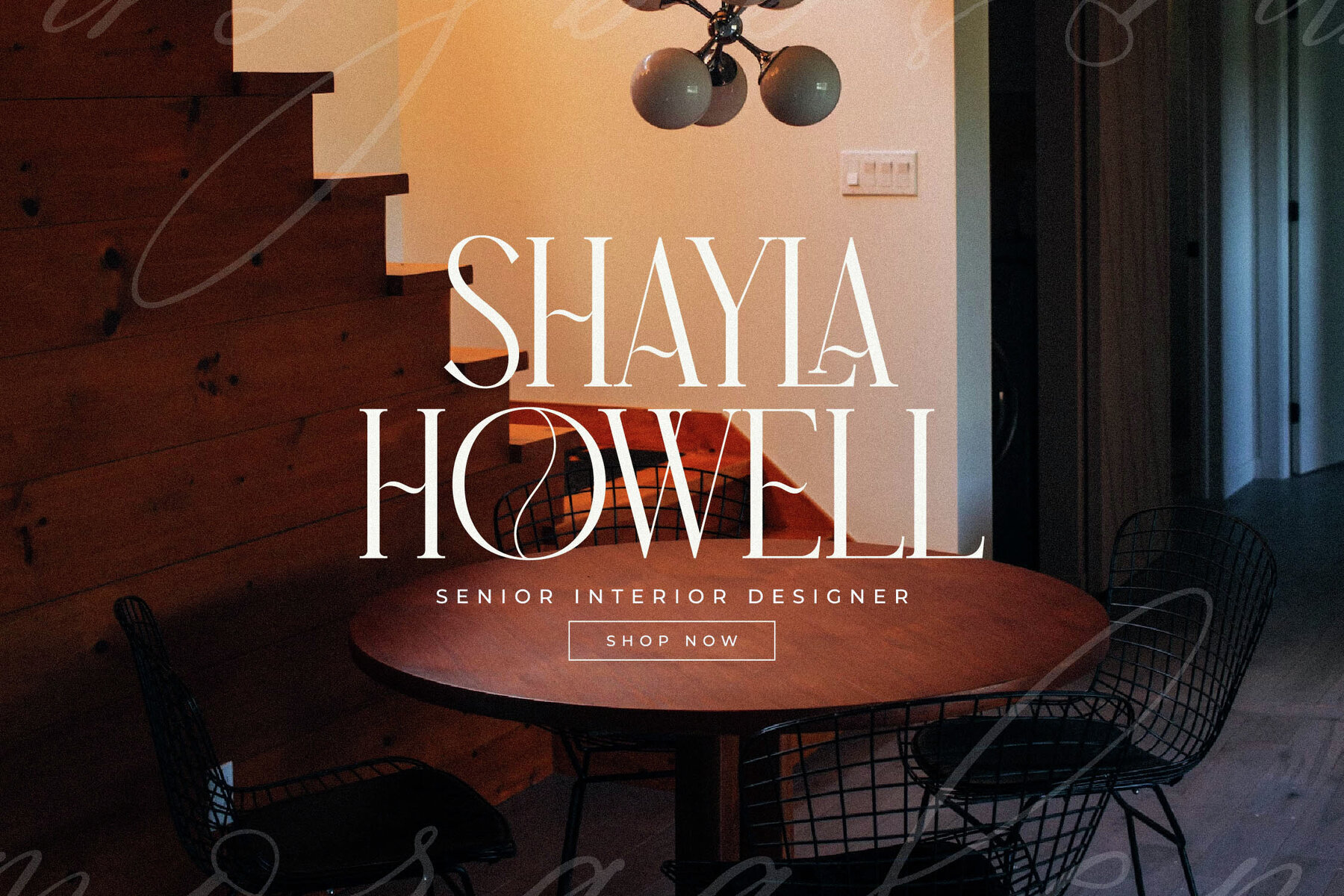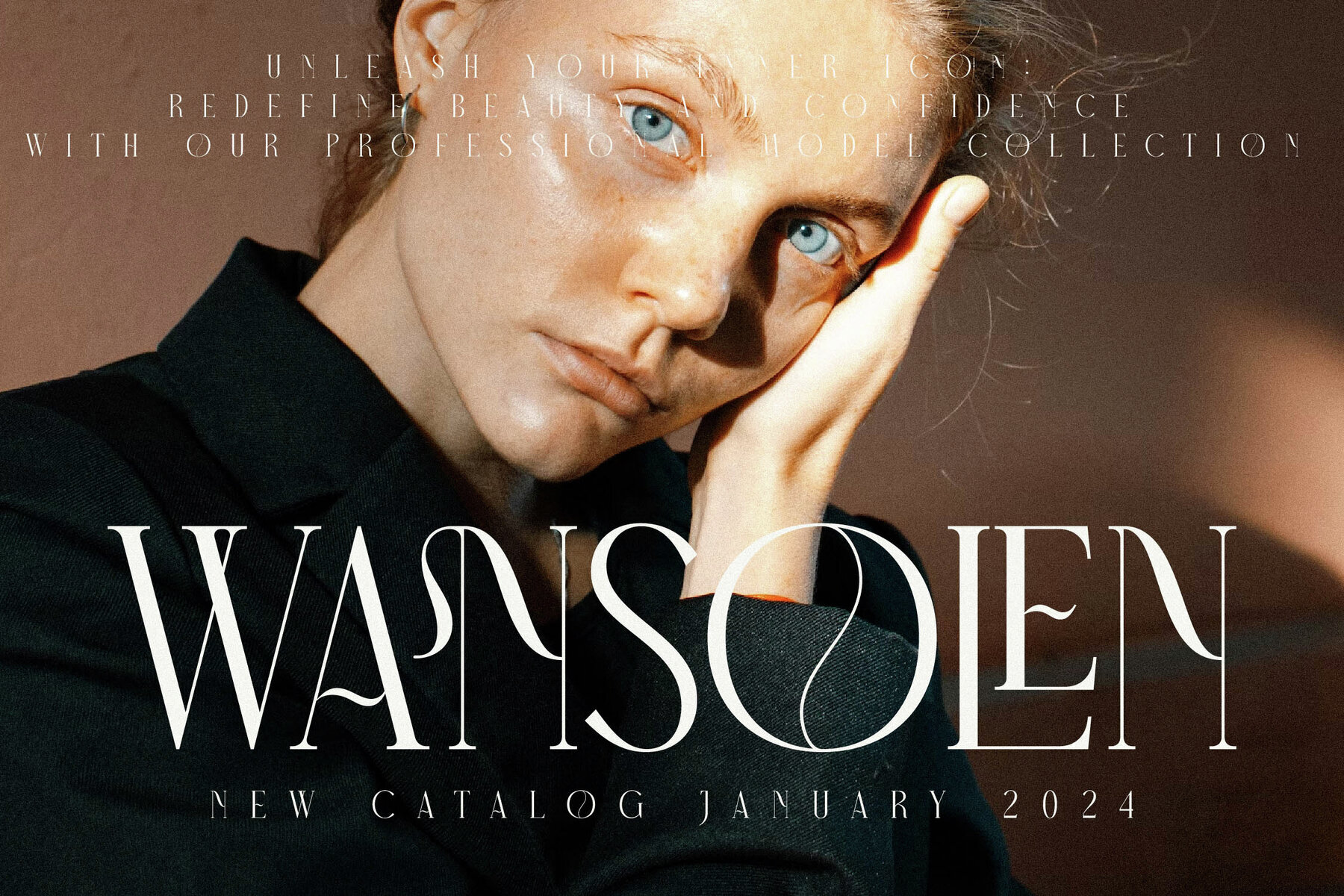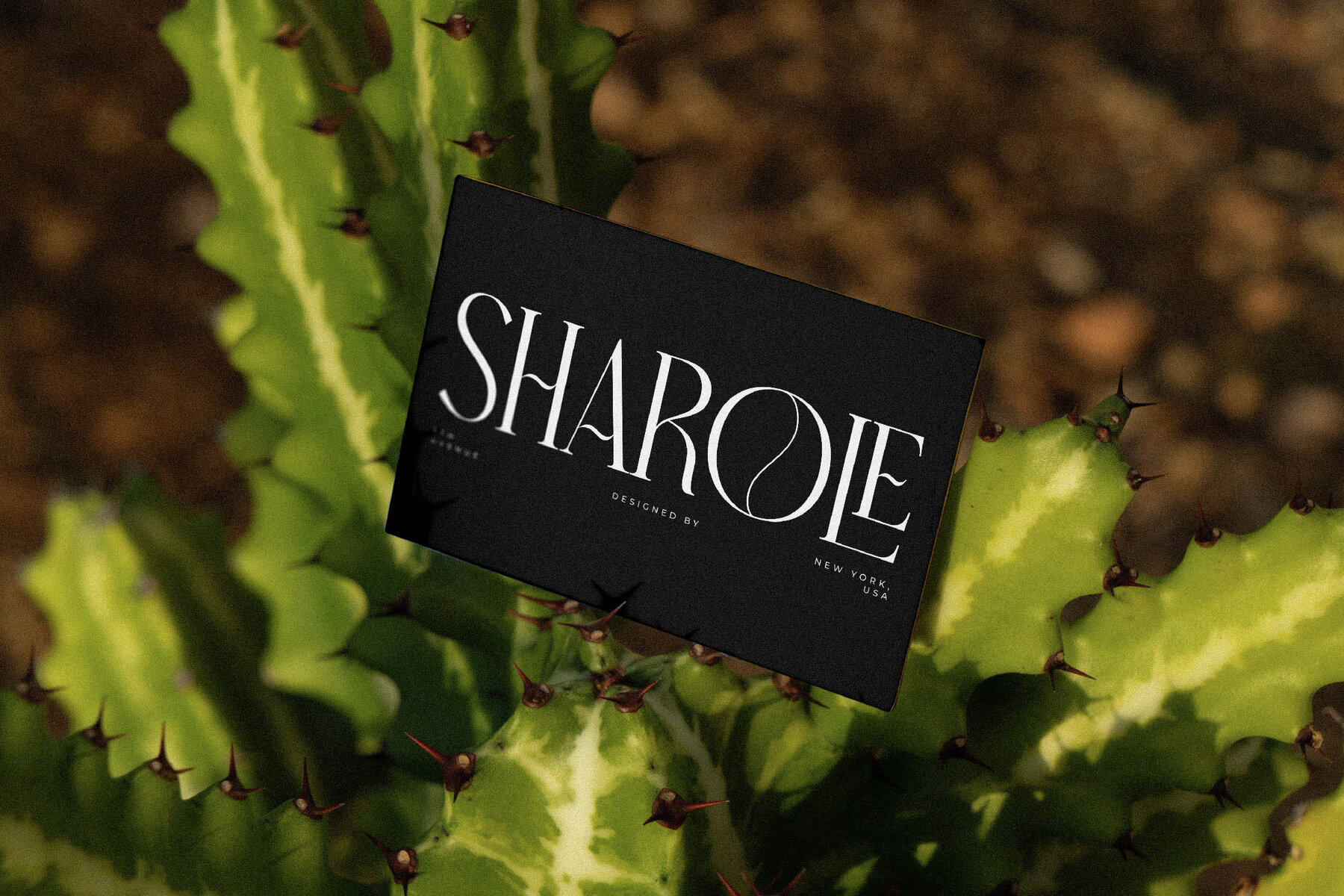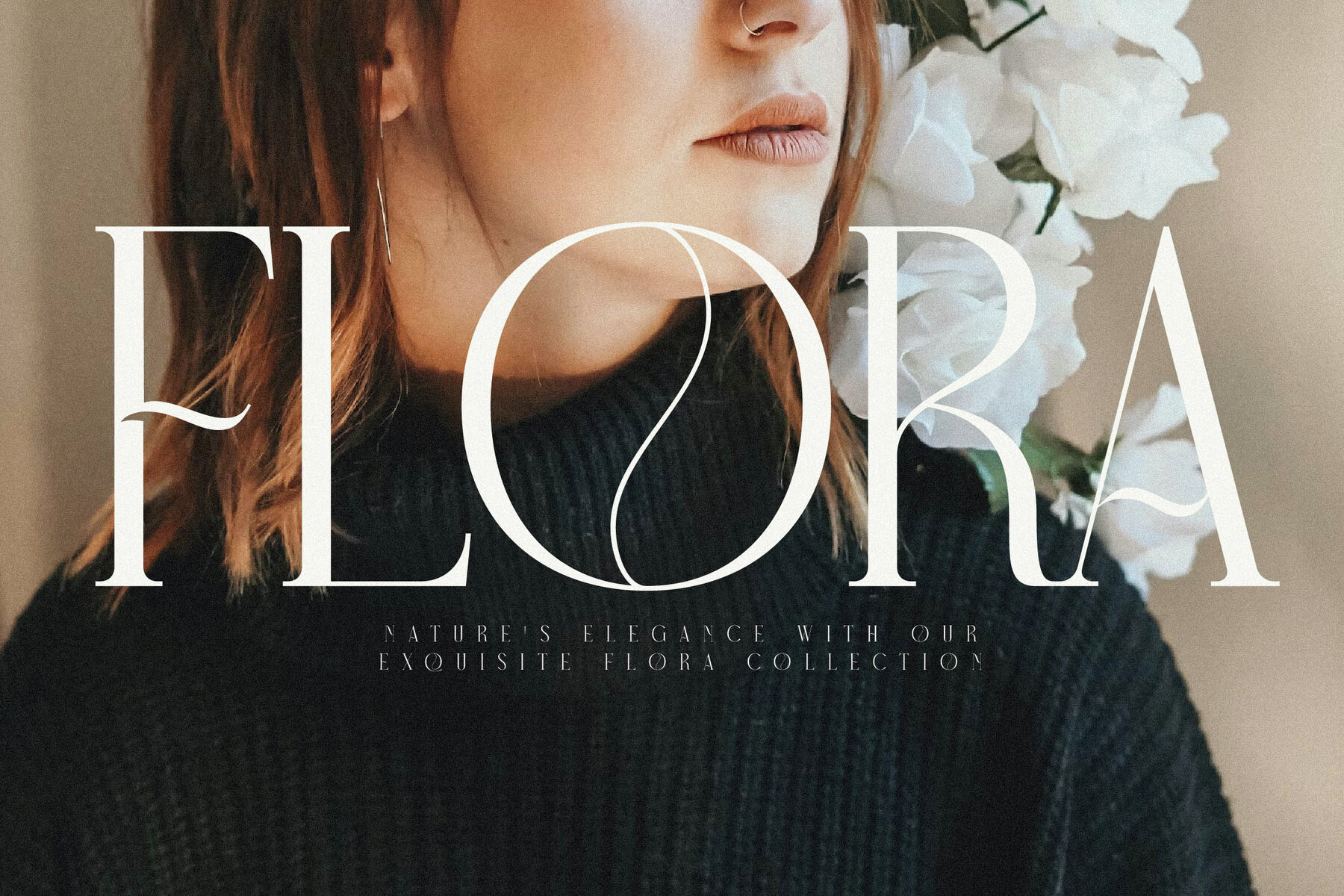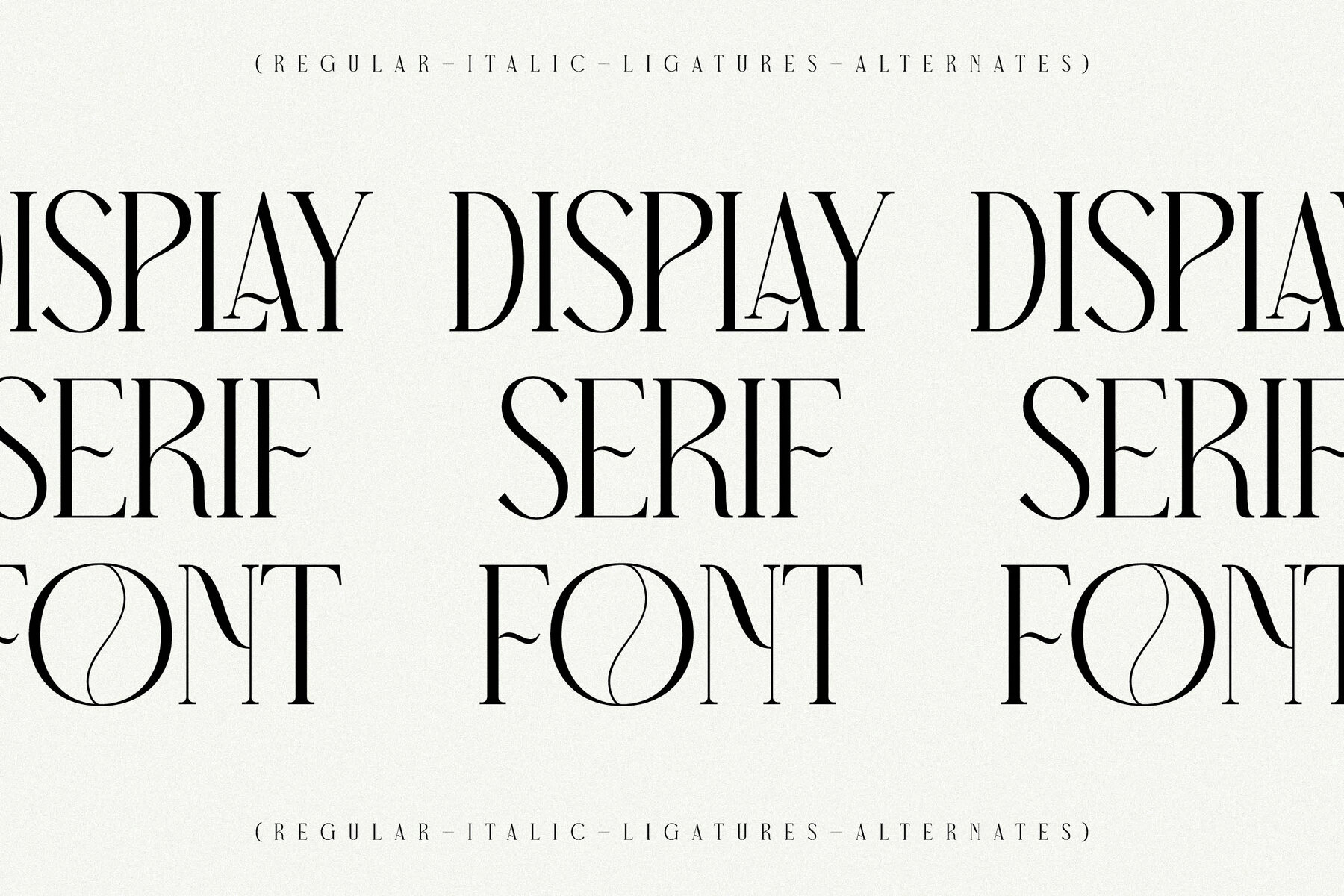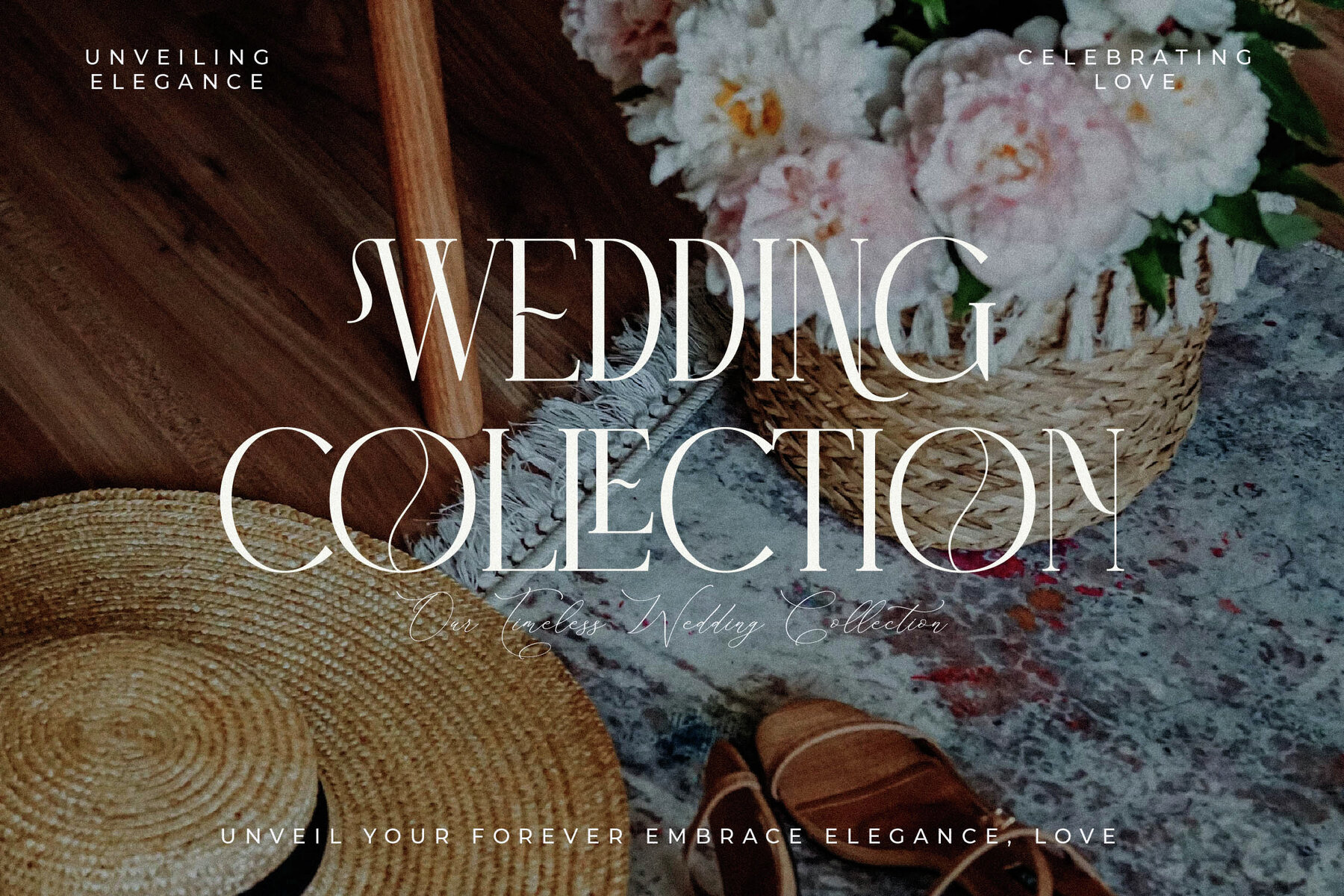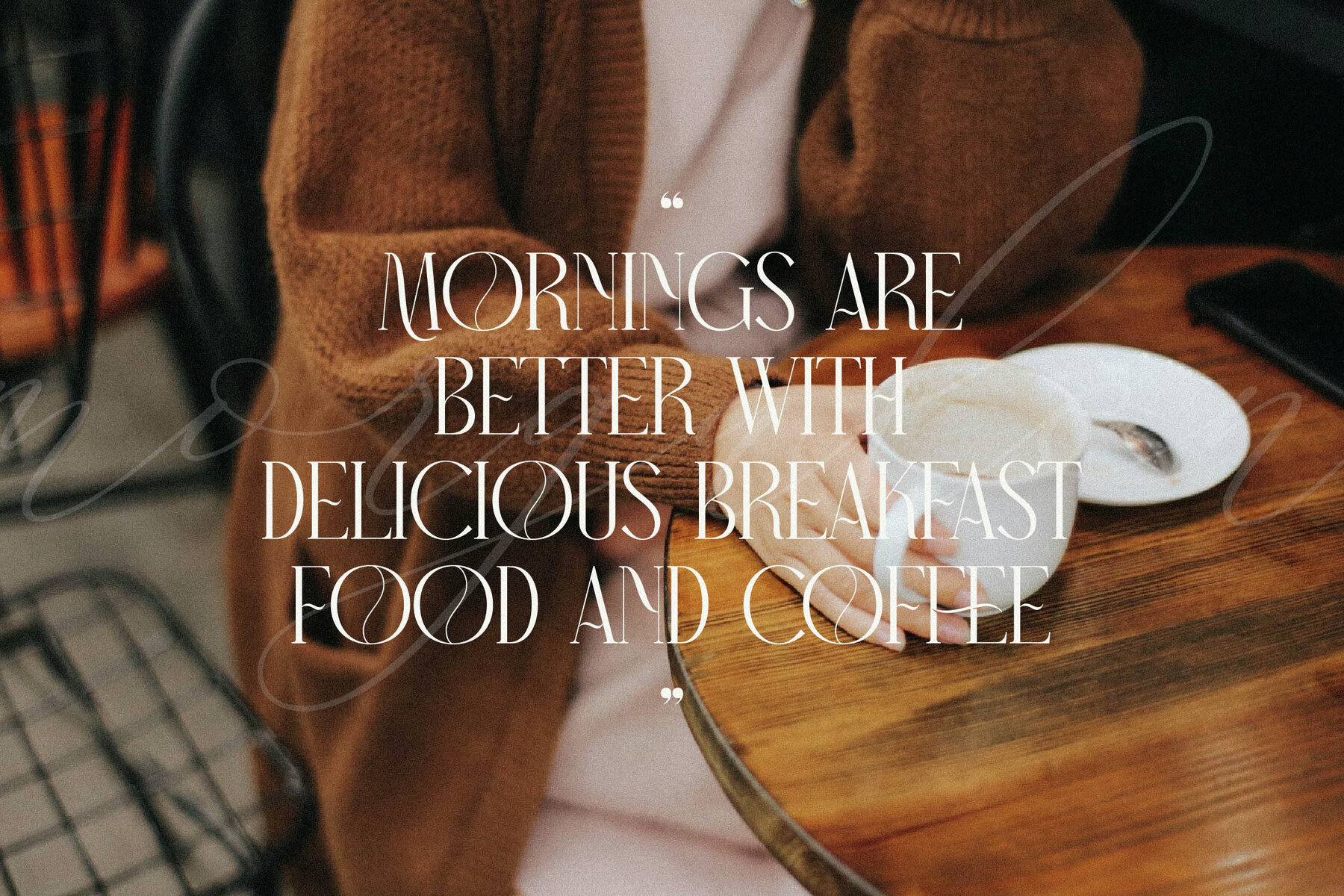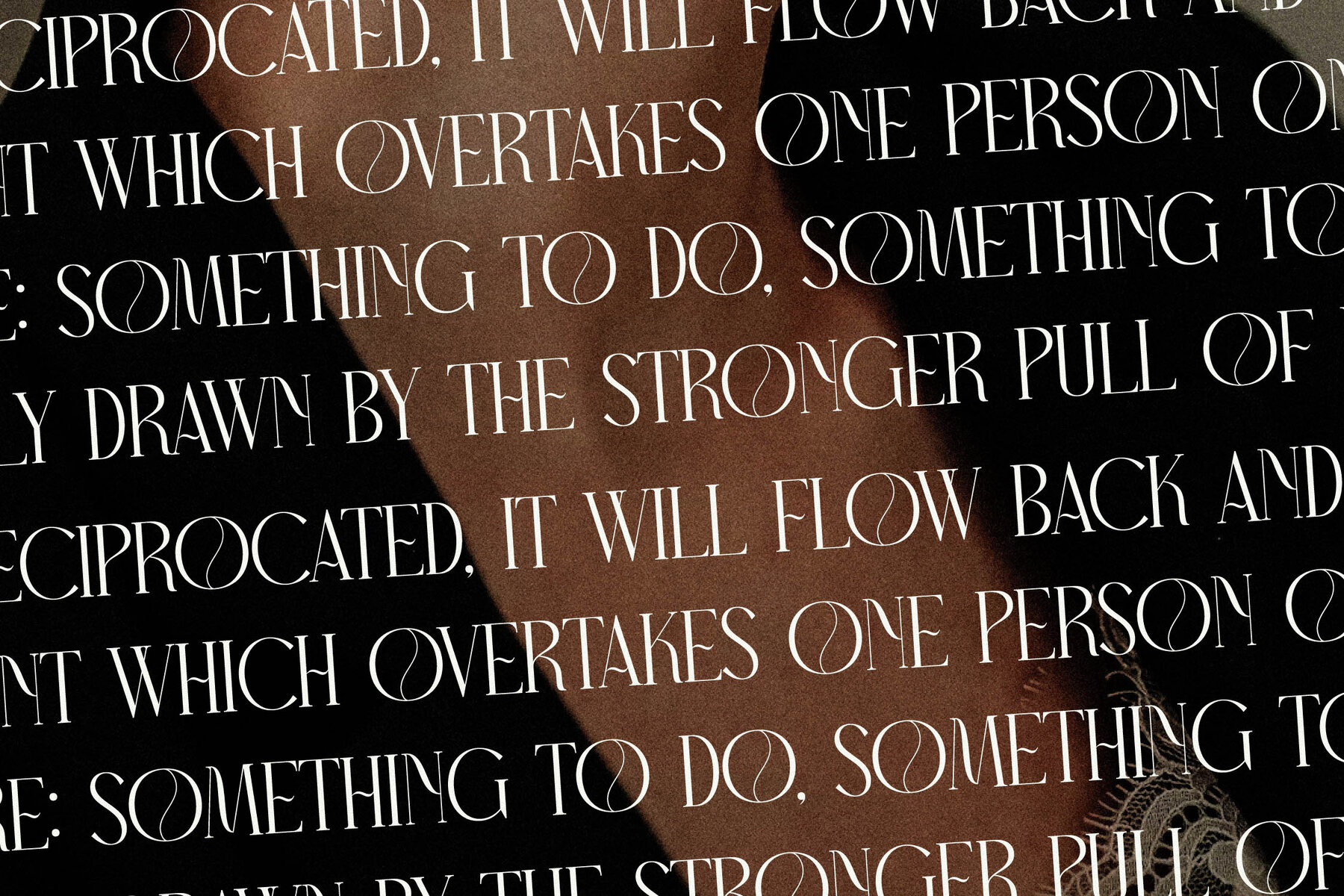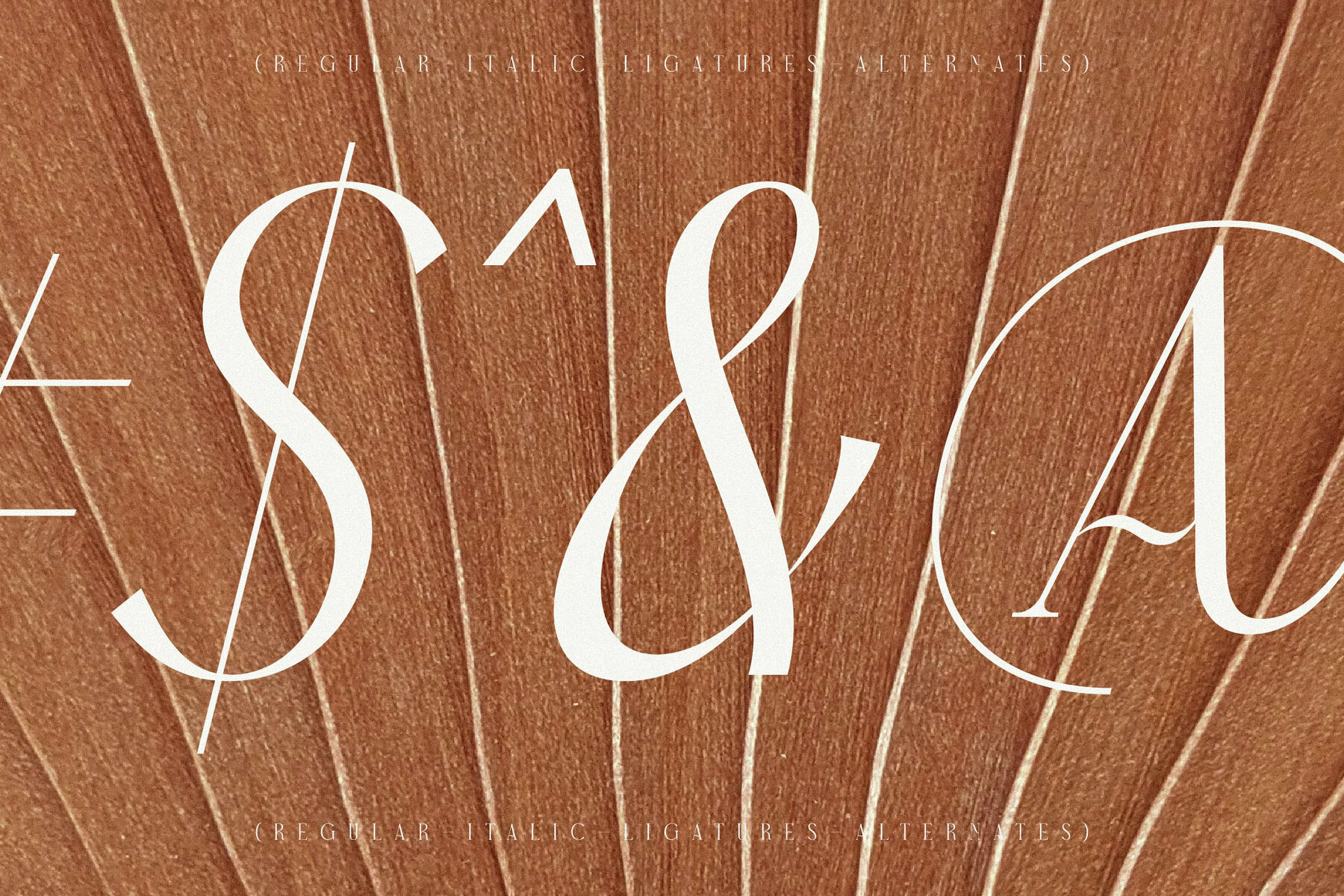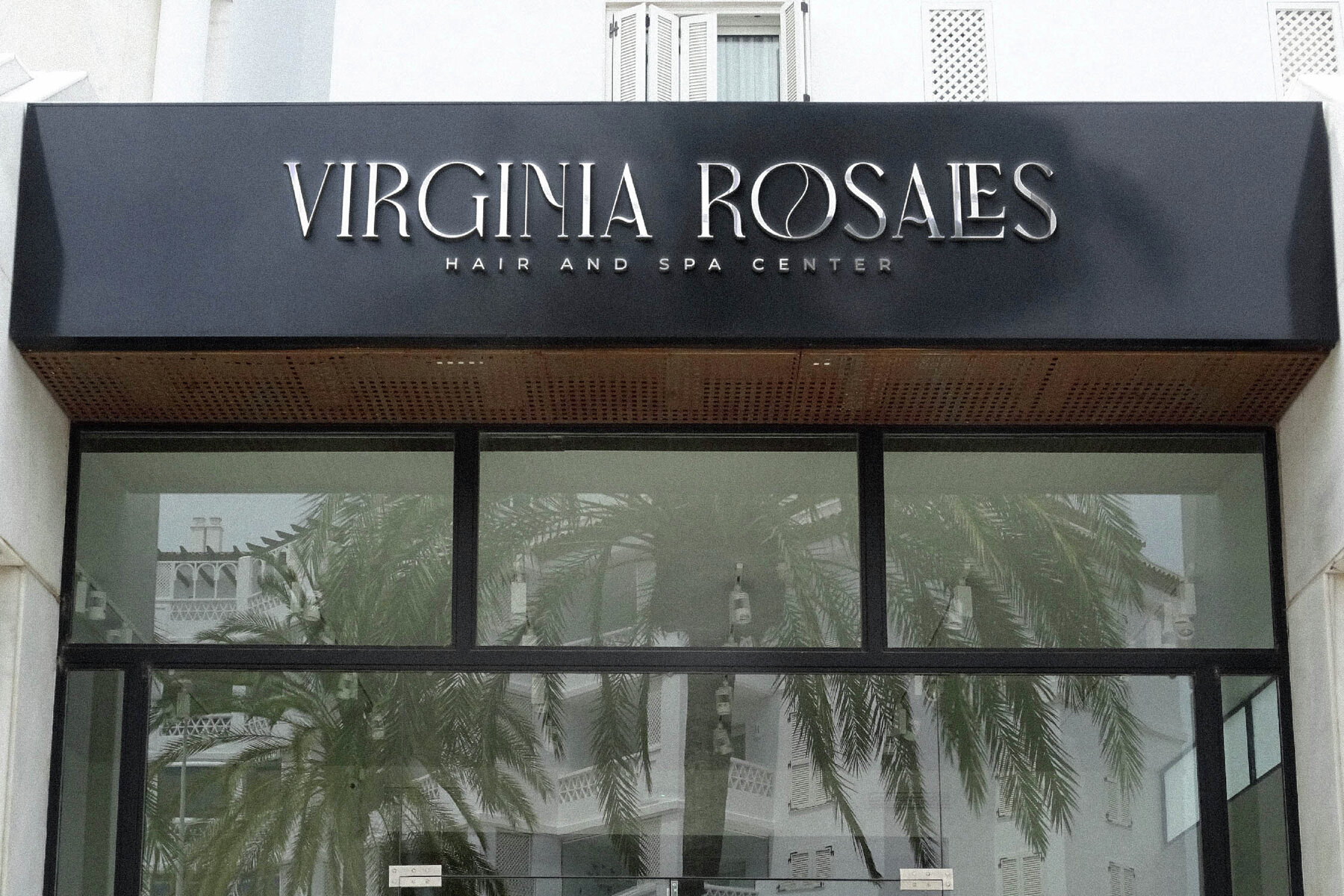
Morgalen Font
The Morgalen Typeface by Storytype offers a sophisticated blend of modernity and classicism, making it a versatile choice for various design projects. Its unique style suits a range of applications, from luxurious logos to fashion branding, book and movie titles, magazines, clothing lines, and even artistic lettering and quotations.Morgalen Typeface: A Fusion of Modern and Classic Styles